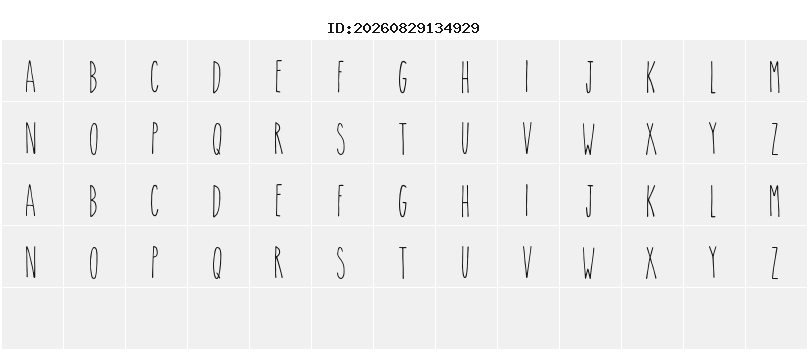
The Skinny Preview
• Font Name: The Skinny
• Full Font Name: TheSkinny
• PostScript Name: TheSkinny
• Character Count: 53
• Designer: Justine Lazo
About The Skinny.otf
The Skinny.otf is a modern, elegant sans-serif font designed for ultimate readability and visual harmony. Perfect for branding, headlines, web design, and print materials.